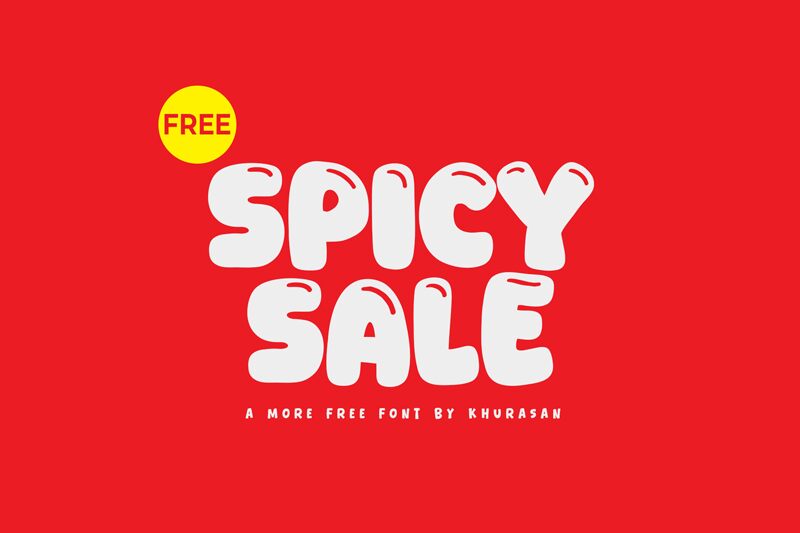
Spicy Sale font family is a free, playful cartoon font duo by Khurasan. Incorporating a captivating visual approach, its letters feature mainly smooth rounded edges and distinct uniform thickness. Its gentle elegance is the result of a smooth and consistent letter construction that doesn’t go unseen. Integrate it beautifully into contemporary applications in advertising, signage, headers, and more.
As the name suggests, Spicy Sale’s design promotes the idea of consumption, so it would work perfectly on all products and packages as an interesting and eye-appealing display font. Its flat style makes it reliable for designing websites, infographics, and presentation slides and documents.